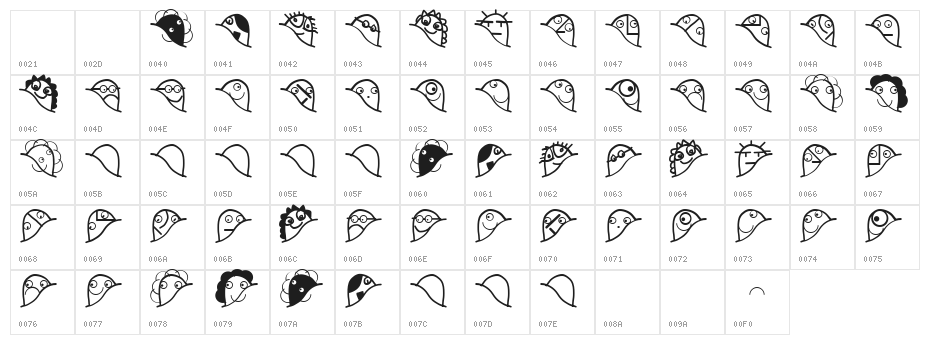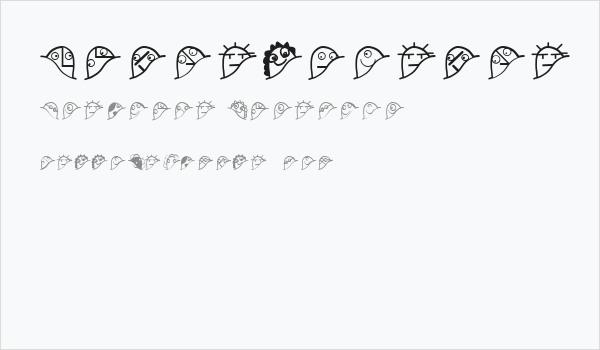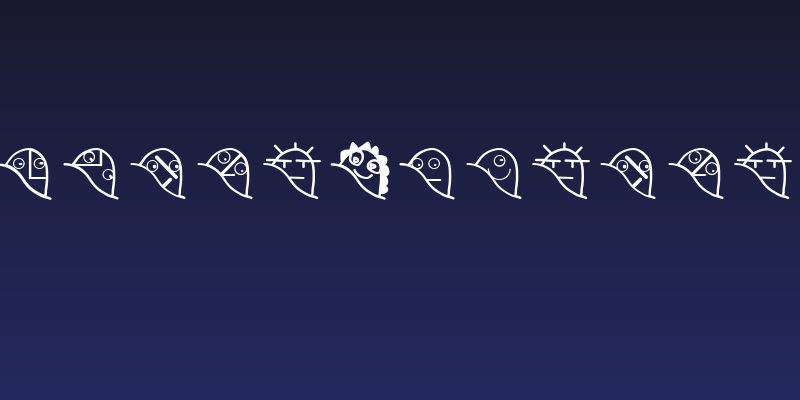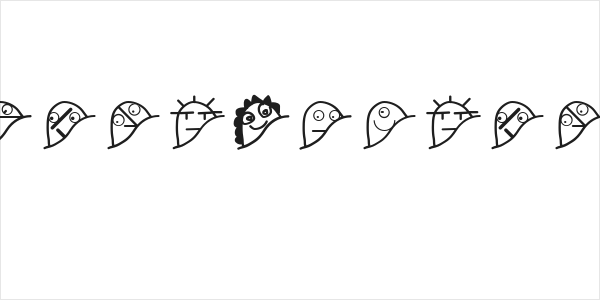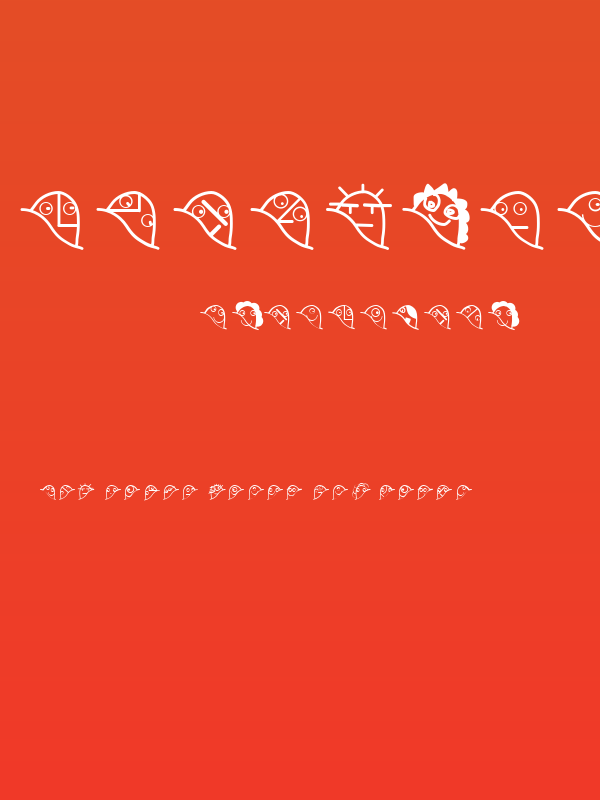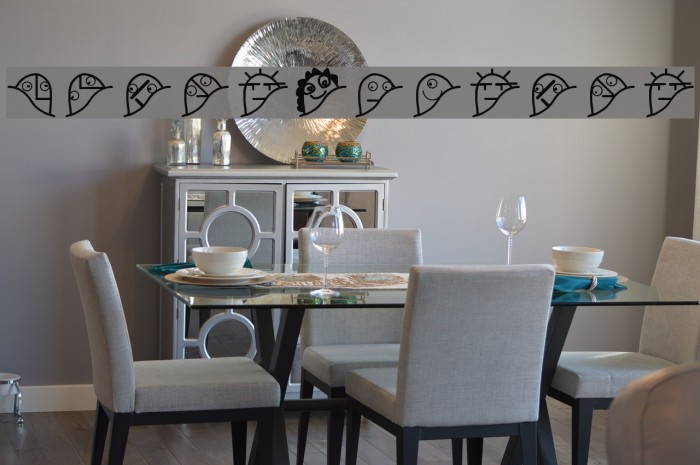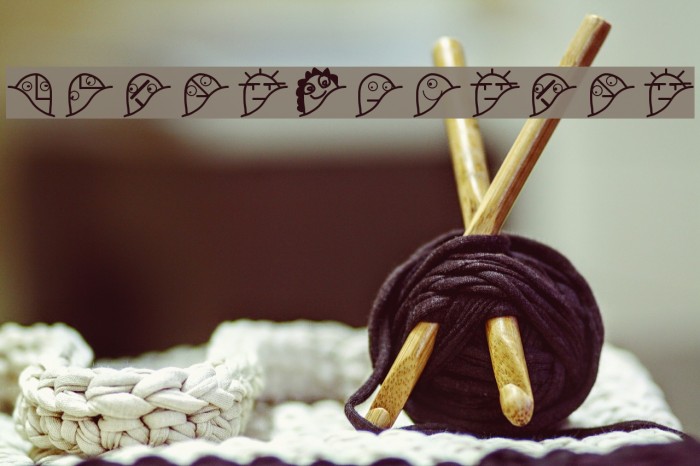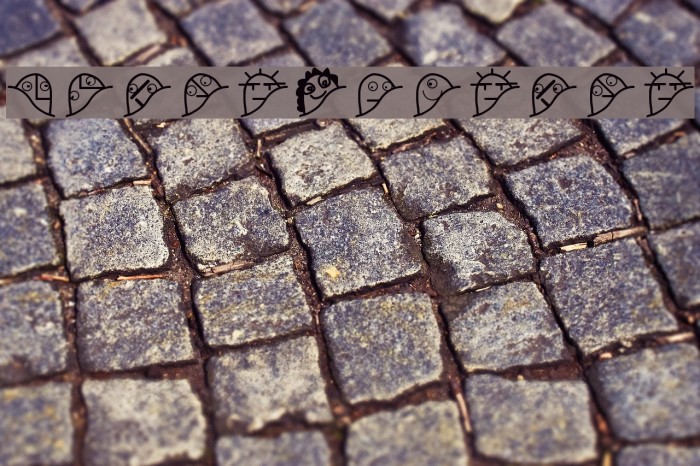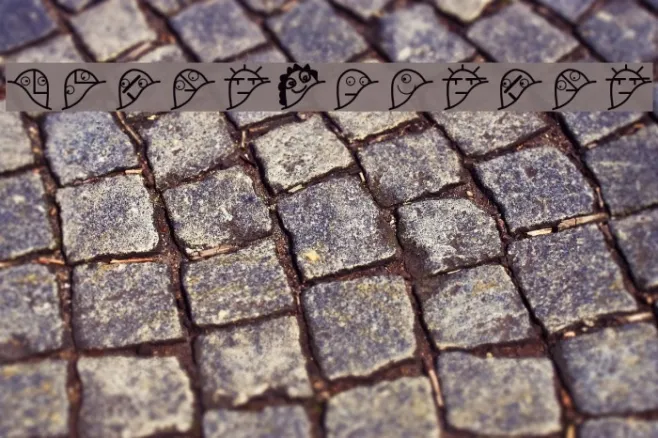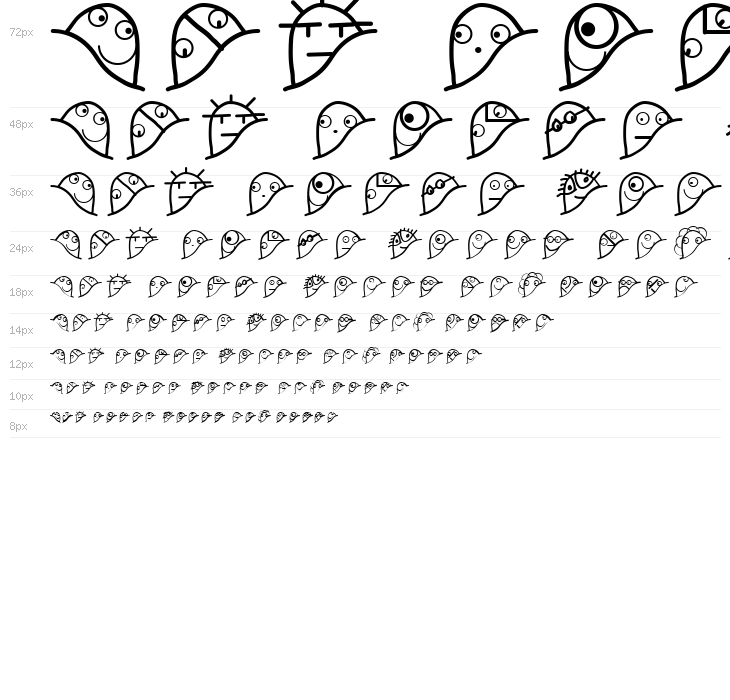
Gipfelkoepfe Font
Gipfelkoepfe Description
This is not a traditional font but rather a collection of whimsical bird illustrations, each representing a different character or symbol. The designs are playful and imaginative, with each bird featuring unique details such as varying eye shapes, head decorations, and expressions. These elements give the collection a lively and artistic feel, making it suitable for creative and decorative purposes. The illustrations are consistent in style, maintaining a cohesive look across the set.
| Use Case | Decorative elements, Illustrations |
| Proposed Projects | Ideal for creative projects such as children's books, decorative posters, or playful branding elements. |